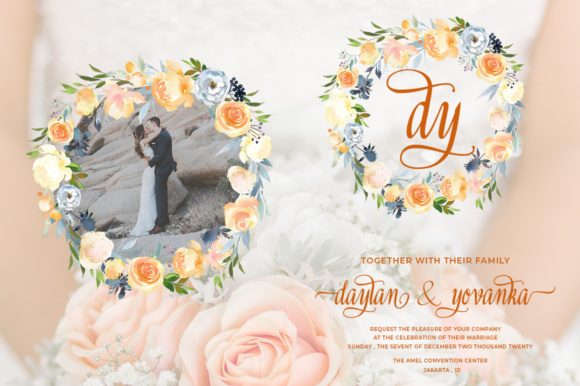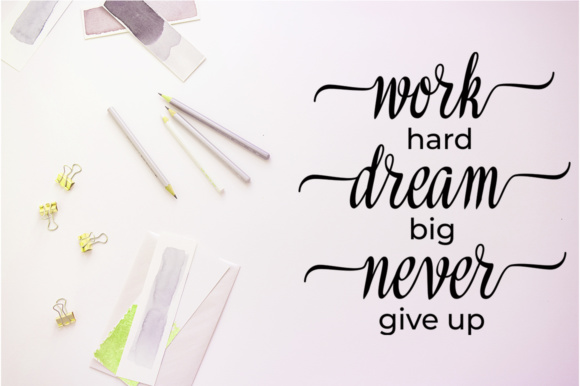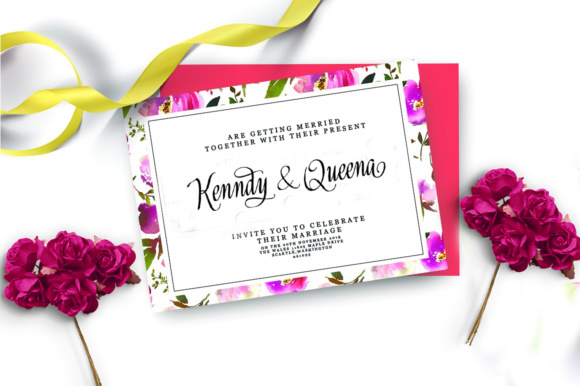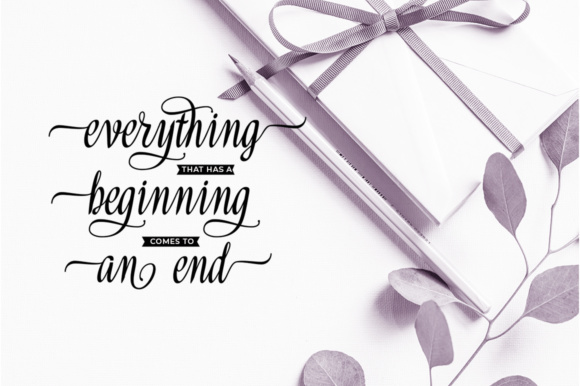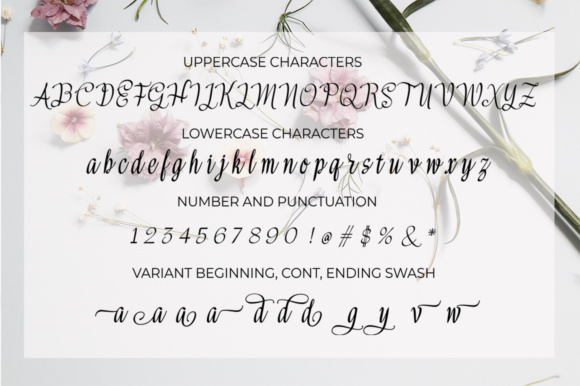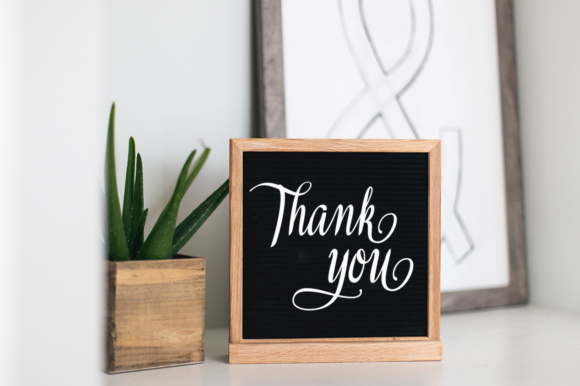
Introduction to Meikayla Script Font
As a designer, there’s nothing quite like the rush of inspiration that comes from discovering a new font that perfectly captures the essence of your creative project. For me, that moment came when I stumbled upon the Meikayla Script Font. Its elegant, handwritten style and intricate connections between letters transported me to a bygone era of high-quality design and attention to detail.
Meikayla Script Font is more than just a pretty face – it’s a valuable resource for designers looking to add a touch of sophistication to their designs. With its modern twist on classic decorative fonts, Meikayla is perfect for creating vintage logos, fashion labels, and custom cards that exude style and elegance.
Key Features of Meikayla Script Font
- Unique Handwritten Design: Meikayla Script Font features a beautiful, high-quality handwritten design perfect for creative projects that require a personal touch.
- Perfect for Creative Projects: With its elegant and sophisticated design, Meikayla Script Font is ideal for a wide range of creative projects, including invitations, wedding stationery, and more.
Honest Review: Meikayla Script Font
I recently stumbled upon the Meikayla Script Font, and I must say, it’s a lovely addition to any design resource collection. This high-quality font is perfect for those looking to add a touch of elegance to their creative project.
One of the standout features of the Meikayla Script Font is its beautiful, handwritten style. It’s great for use in titles, headings, or even as a body font in certain contexts. I also appreciate that it’s available for free download, making it an excellent choice for designers on a budget.
- Beautiful, handwritten style that’s great for titles and headings
Overall, I’m quite impressed with the Meikayla Script Font. While it may have a few limitations, its beautiful design and free download make it a valuable addition to any design resource collection.
Tips for Getting the Most Out of Meikayla Script Font
For a high-quality design, pair Meikayla Script Font with a transparent background to create a clean and elegant look. You can also use it as a design resource for your creative project by combining it with other fonts and graphics.
Meikayla Script Font is perfect for wedding invitations, birthday party invitations, and other creative projects that require a touch of elegance. It’s also a great design resource for social media graphics, blog posts, and other digital content.